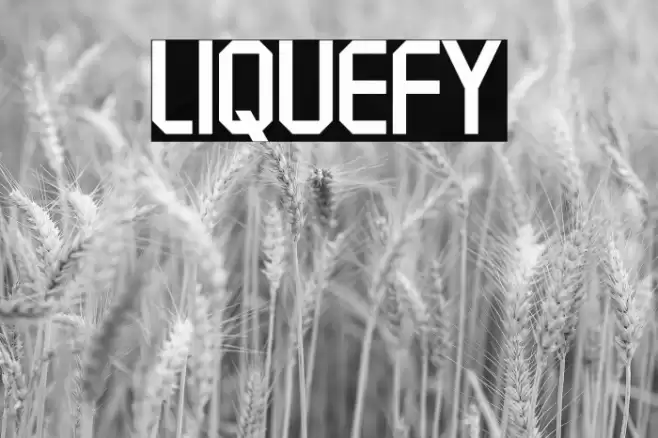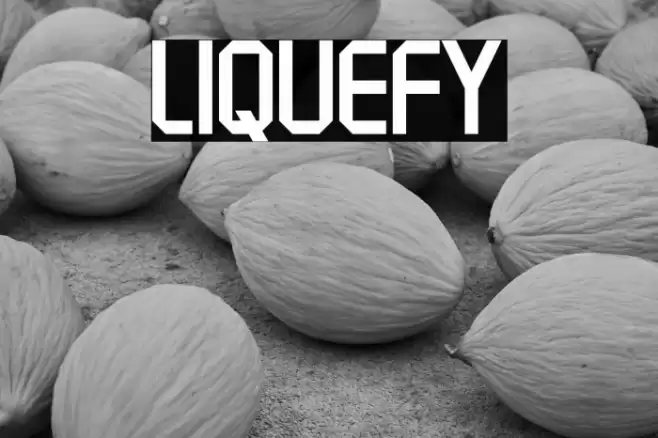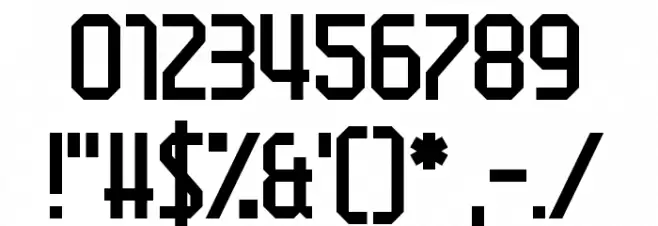
Liquefy Font
Liquefy Description
This font features a bold, geometric style with a modern and angular appearance. The characters are constructed with straight lines and sharp angles, giving it a futuristic and digital feel. The uppercase letters are uniform in height, while the lowercase letters maintain a consistent style, enhancing readability. The numbers and special characters follow the same geometric pattern, ensuring a cohesive look across all elements. This font's design is striking and impactful, making it suitable for attention-grabbing displays.
A bold, geometric font with a modern, angular design from Uncategorized fonts.
- Proposed Projects: Ideal for technology branding, digital interfaces, video game titles, and futuristic posters.